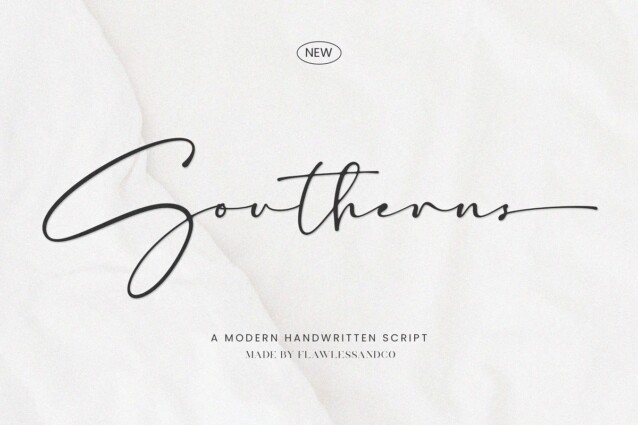
Southerns Font
Southerns Font is a beautiful and luxurious handwritten font manufactured by Flawless And Co. Unveil the beauty of modernity and the warmth of handcrafted charm with “Southerns,” a contemporary handwritten script font that brings a touch of casual elegance to your designs. With its flowing lines and stylish character, “Southerns” is designed to add a sense of personal touch and modern style to your projects.